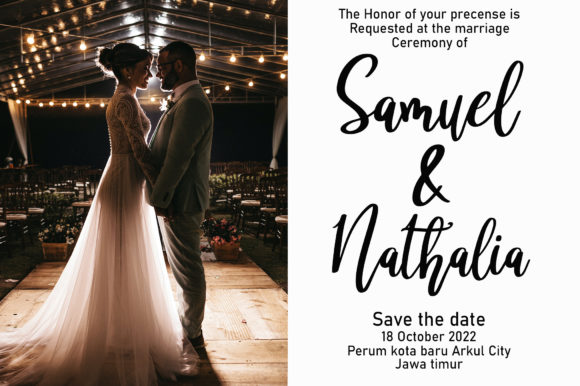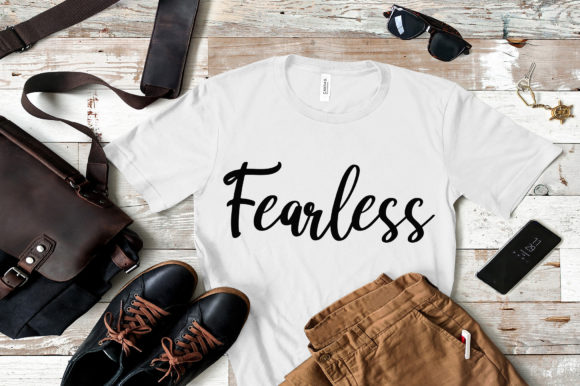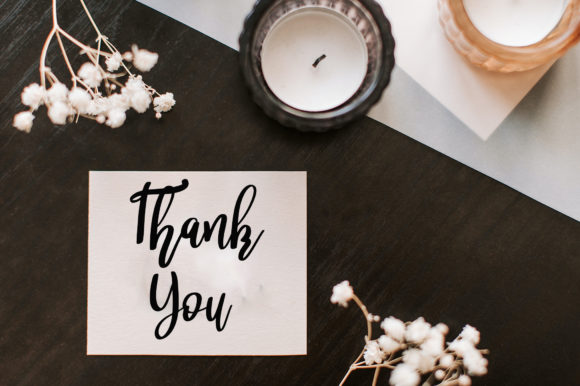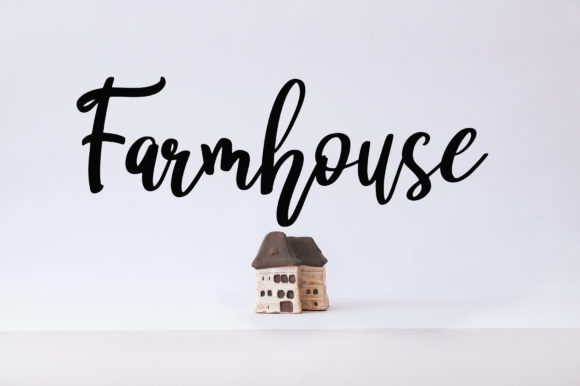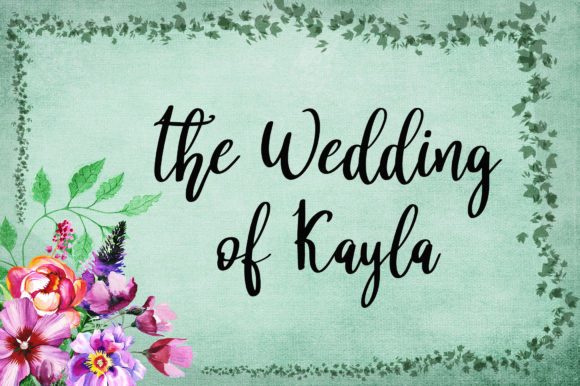
Baby Dog Font
About Baby Dog Font
Baby Dog is a charming and romantic script font, embodying sweetness and beauty with its delicate curves in every letter. This font is crafted to add a touch of elegance and romance to your designs. Notably, Baby Dog is PUA coded, providing seamless access to all its unique glyphs and sweeps, ensuring a user-friendly experience for creative exploration.
The sweet and romantic nature of Baby Dog shines through its delicate curves, creating an aesthetic that is both enchanting and beautiful. Whether you’re working on wedding invitations, romantic branding, or any project that requires a script font with a gentle touch, Baby Dog is poised to infuse your designs with a sense of romance and grace.
The PUA coding of Baby Dog is a valuable feature, allowing you to effortlessly access a variety of glyphs and sweeps. This functionality provides creative flexibility, enabling you to customize and personalize your designs easily. Baby Dog transforms from a font into a versatile design companion, adapting to your vision and making your creative process smooth and enjoyable.
Integrate Baby Dog into your design toolkit, and discover how it elevates your projects with its romantic and beautiful script. The delicate curves in each letter contribute to an overall aesthetic that captures attention and evokes a sense of tenderness. Let Baby Dog be the script font that adds a sweet and romantic touch, turning your designs into captivating expressions of love and beauty.